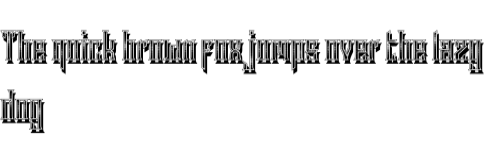
Bizarre Font: The Ultimate Decorative Font for Stunning Designs
In the world of typography, fonts play a crucial role in making or breaking a design. A well-chosen font can elevate your design from ordinary to extraordinary, while a poorly chosen one can have the opposite effect. If you’re looking for a font that can add a touch of uniqueness and personality to your designs, look no further than Bizarre Font. In this article, we’ll explore what makes Bizarre Font so special and how you can use it to create stunning designs.
What is Bizarre Font?
Bizarre Font is a decorative font that is designed to add a touch of whimsy and playfulness to your designs. With its unique and quirky style, Bizarre Font is perfect for creating eye-catching posters, flyers, t-shirts, and other designs that require a bit of personality. The font is available in various formats, making it easy to use on different platforms and devices.
Key Features of Bizarre Font
- Unique and Quirky Style: Bizarre Font has a one-of-a-kind style that will set your designs apart from the rest.
- Highly Versatile: The font can be used on a wide range of designs, from posters and flyers to t-shirts and more.
- Easily Readable: Despite its decorative nature, Bizarre Font is still highly readable, making it perfect for designs that require a bit of flair.
How to Use Bizarre Font
Bizarre Font is incredibly easy to use, and its versatility makes it perfect for a wide range of designs. Here are a few ideas to get you started:
- Posters: Use Bizarre Font to create eye-catching posters for events, promotions, or simply to decorate your walls.
- Flyers: Add a touch of personality to your flyers with Bizarre Font, making them stand out from the crowd.
- T-Shirts: Create stunning t-shirt designs with Bizarre Font, perfect for personal use or as a gift.
- Social Media Graphics: Use Bizarre Font to create engaging social media graphics that will grab the attention of your followers.
Design Tips for Using Bizarre Font
While Bizarre Font is incredibly versatile, there are a few design tips to keep in mind to ensure you get the most out of this amazing font:
- Pair with a Simple Font: Pair Bizarre Font with a simple font to create contrast and make your design stand out.
- Use on a Bold Background: Use Bizarre Font on a bold background to make the font really pop.
- Experiment with Colors: Don’t be afraid to experiment with different colors to find the perfect combination for your design.
- Keep it Simple: While Bizarre Font is decorative, it’s still important to keep your design simple and easy to read.
Benefits of Using Bizarre Font
So, why should you choose Bizarre Font for your designs? Here are just a few benefits of using this amazing font:
- Adds Personality to Your Designs: Bizarre Font adds a touch of personality and whimsy to your designs, making them stand out from the crowd.
- Increases Engagement: The unique style of Bizarre Font can help increase engagement and grab the attention of your audience.
- Perfect for Creative Projects: Bizarre Font is perfect for creative projects, such as designing posters, flyers, and t-shirts.
- Easily Customizable: The font is easily customizable, making it easy to adjust to fit your design needs.